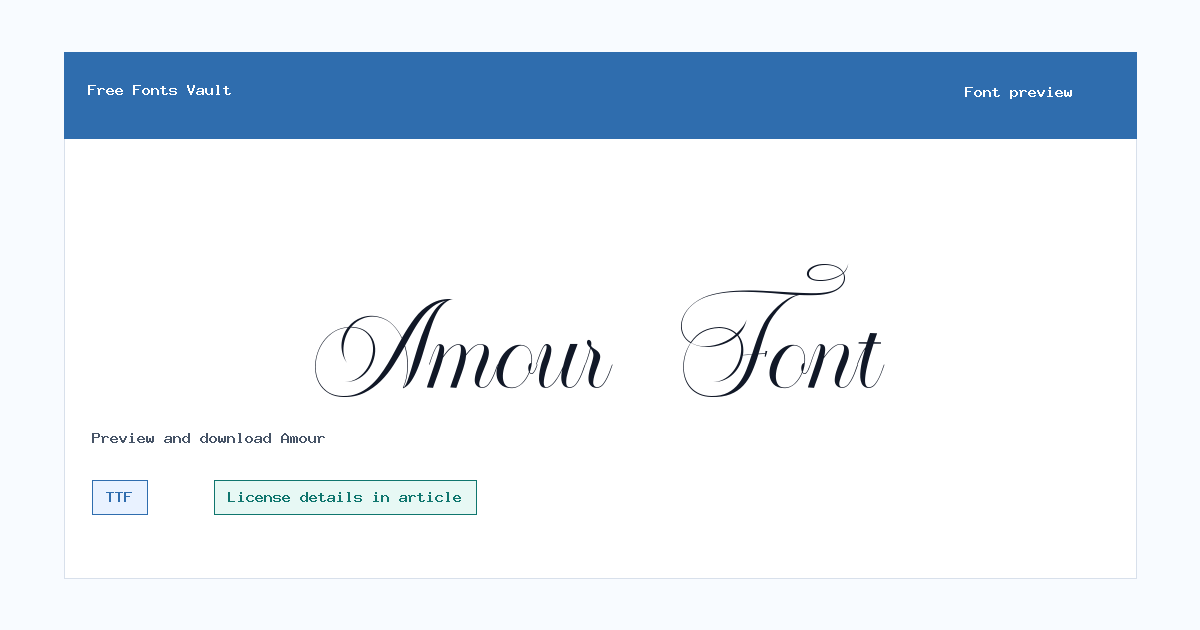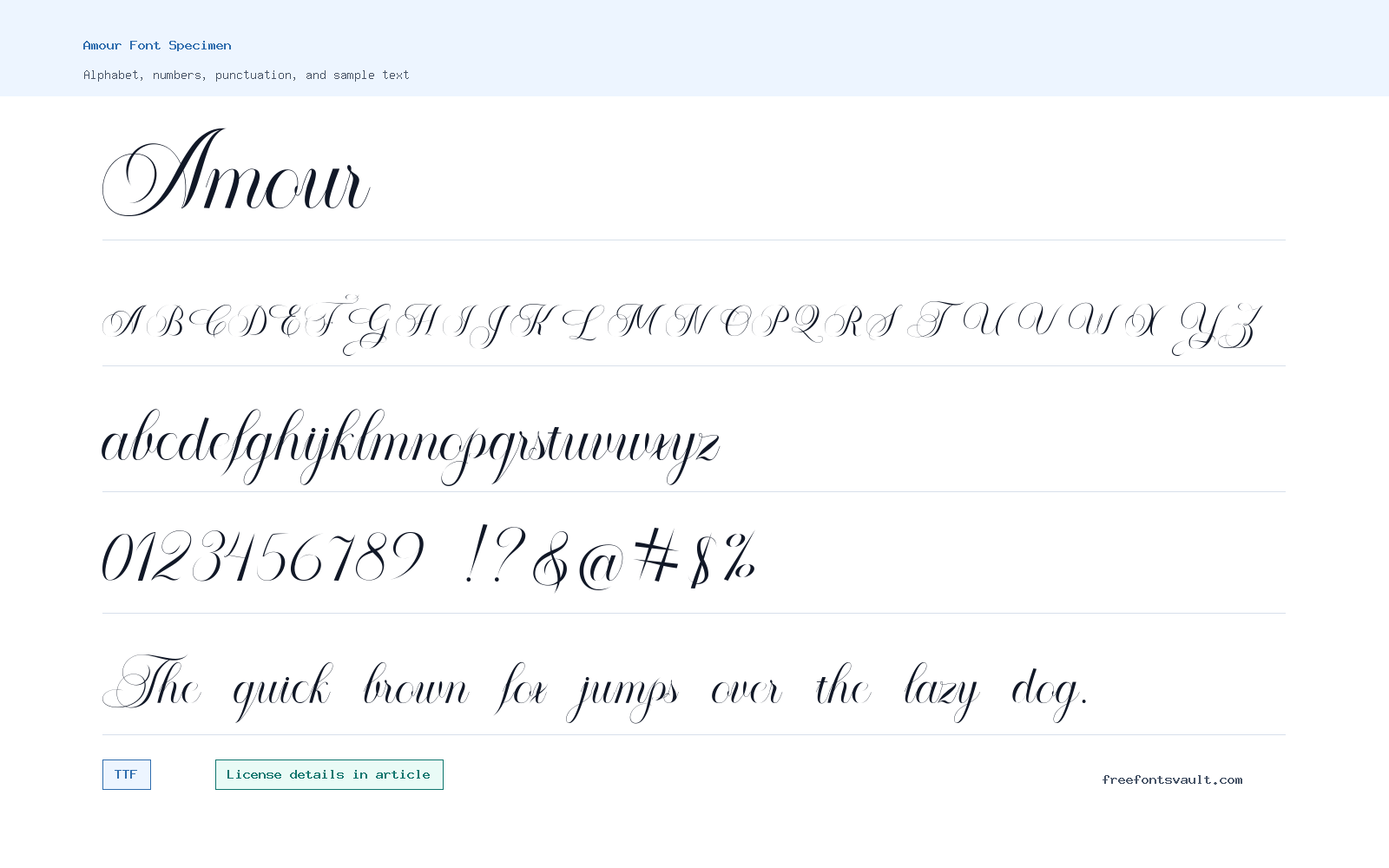
Amour
- Designer Bosstype Studio
- Foundry Bosstype Studio
Amour font.
Amour is a single-style TTF font from Bosstype Studio for designers who want to test a refined display voice in names, titles, cards, labels, and short decorative text. Use the preview with your own wording because the best fit depends on the exact phrase.
Amour comes as a regular style with normal 400 weight, so it is best judged in the same kind of text you plan to design. Try your brand name, initials, invitation line, quote, product label, or short heading in the preview box and compare how the spacing feels at different sizes.
Since only one style is listed, treat Amour as a focused display option rather than a complete family with bold, italic, or multiple weights. It can still be useful when the typography only needs one clear voice, especially in simple layouts where the font is allowed to carry the mood.
For practical design work, test uppercase and lowercase combinations, punctuation, numbers, and any accented characters you need. If the words feel too delicate or too tight, adjust size and spacing or pair Amour with a plain supporting font for captions and body copy.
- Normal 400 weight suited to short display text and clean decorative use
- Created by Bosstype Studio
- Best evaluated with custom names, titles, quotes, and labels
- Works well as an accent font when paired with a simpler reading face
- Invitation headings and greeting cards
- Name-based graphics, labels, and boutique branding drafts
- Short quotes, social media posts, and decorative headers
- Personal mockups and display typography tests
Start with short text and generous spacing. Preview the exact name, headline, or label you want to use, then check it at both desktop and mobile sizes. For paragraphs, menus, and small labels, pair Amour with a simpler serif or sans serif so the page stays readable.
Who designed Amour?
Amour is credited to Bosstype Studio.
Does Amour include bold or italic styles?
Only one regular style is listed. If you need bold, italic, or several weights, use Amour as an accent or compare it with a larger family.